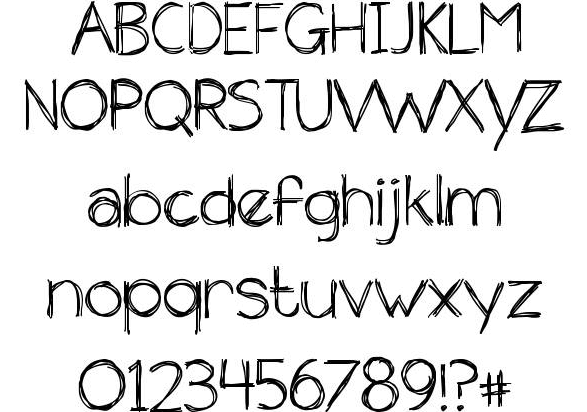
The Unseen Font
The hidden font is ideal for feminine designs seeking a touch of stylish flair. This font is available in normal, thin, and bold styles, featuring both uppercase and lowercase letters.
Style Of The Unseen Font